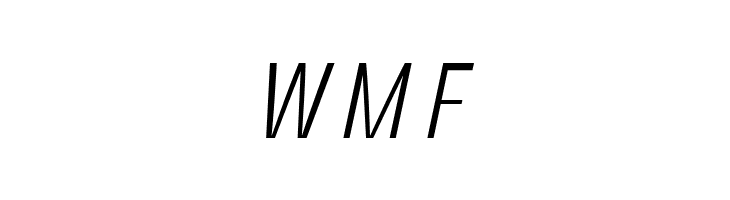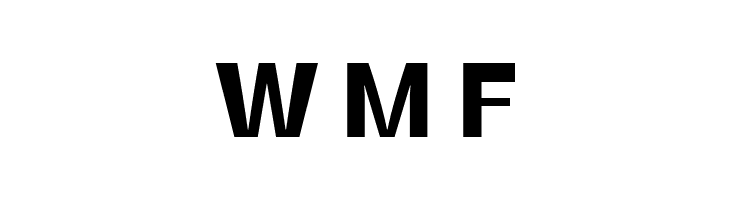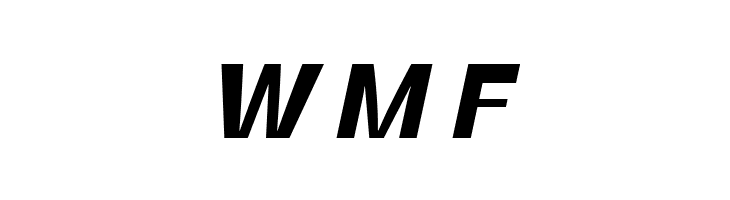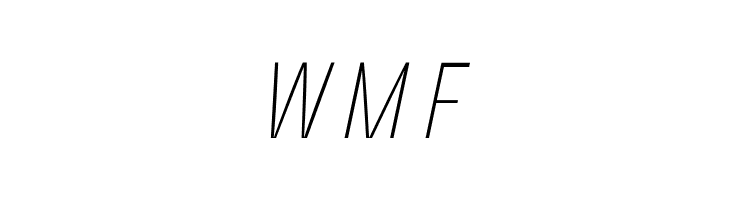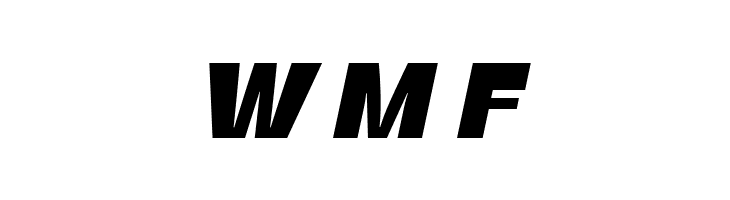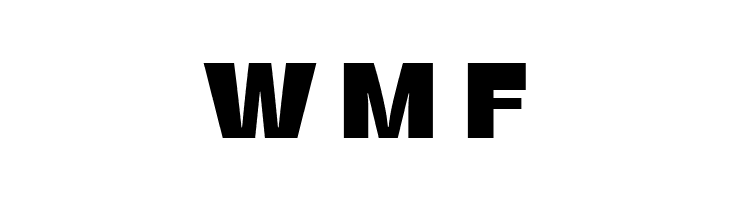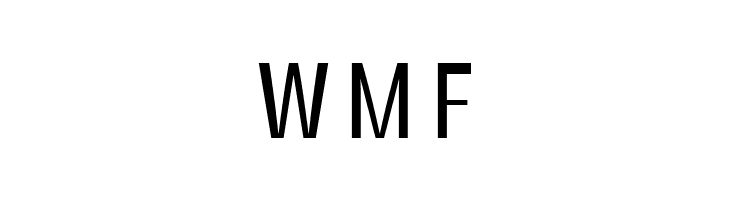
A sleek, modern, and slightly italicized font with a slim and elegant appearance.
A modern, slim sans-serif font with a clean and elegant design.
A sleek, modern font with thin, elongated strokes for a minimalist aesthetic.
A sleek, thin, and italicized modern font with elegant curves.
A bold, modern font with geometric, rounded letterforms.
A bold, italicized font with thick strokes and a dynamic, energetic style.
A bold, geometric typeface with thick, uniform strokes and rounded edges.
A bold, heavy italic font with a dynamic and modern style.
A modern, italic font with sleek lines and a dynamic appearance.
A modern, light sans-serif font with clean lines and excellent readability.